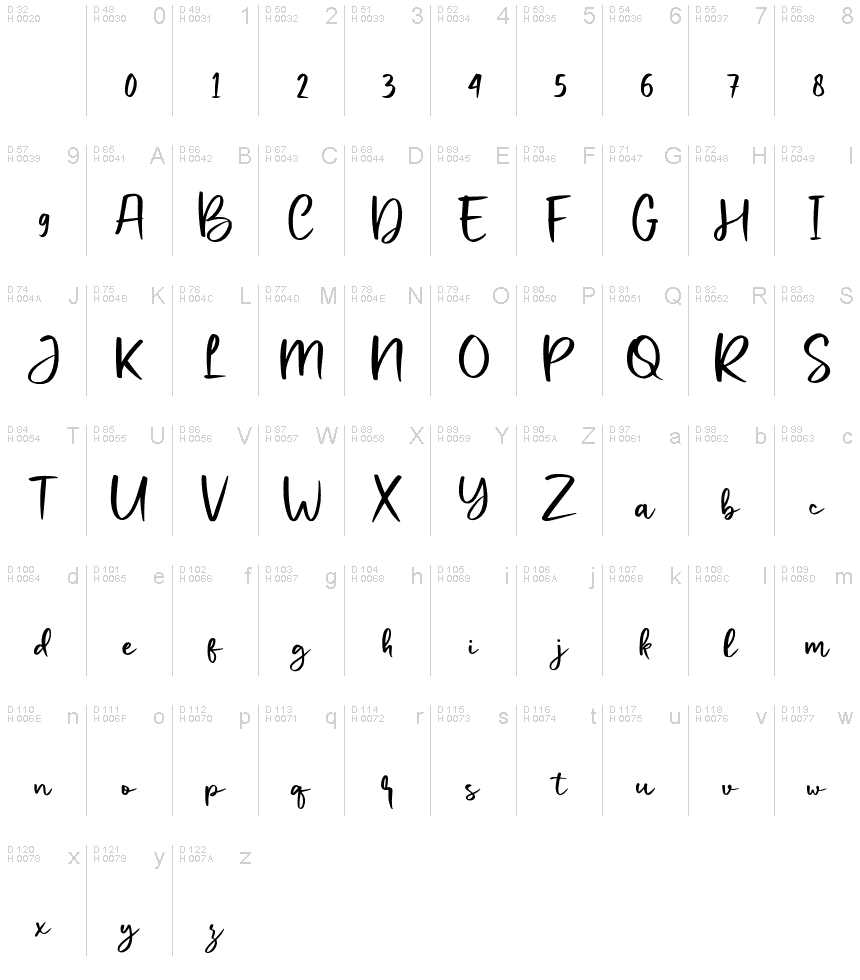
Alpiar Regular
Craft Supply Co. presents Alpiar, a casual handwritten font with a semi-light weight. This versatile typeface is perfect for a wide range of projects, adding an authentic and personal touch to any design.
Its gentle strokes and flowing curves make it ideal for creating eye-catching logos, branding materials, and social media graphics. Alpiar's laid-back vibe also lends itself well to invitations, greeting cards, and other stationery items.
With its unique charm and effortless elegance, this font will surely bring warmth and character to your creative endeavors.
Its gentle strokes and flowing curves make it ideal for creating eye-catching logos, branding materials, and social media graphics. Alpiar's laid-back vibe also lends itself well to invitations, greeting cards, and other stationery items.
With its unique charm and effortless elegance, this font will surely bring warmth and character to your creative endeavors.